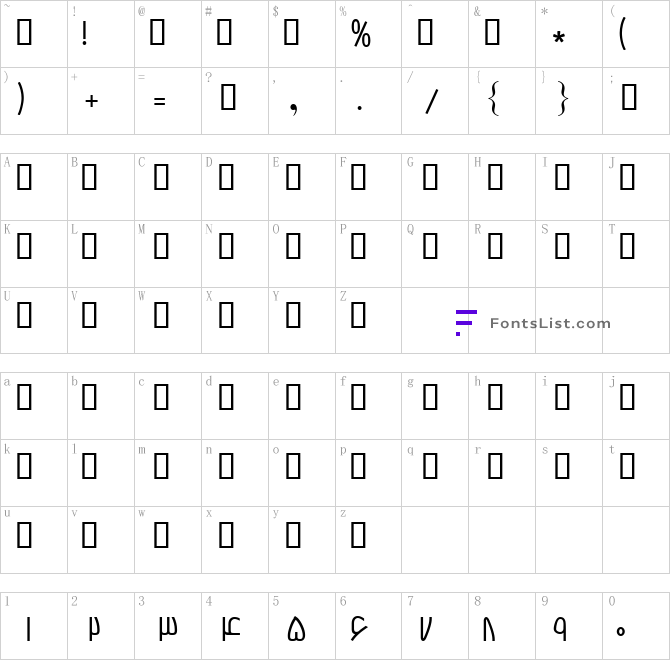
B-Bardiya.ttf is a very beautiful artistic font, B-Bardiya.ttf is widely used in the design and printing of various books and pictures,B-Bardiya.ttf has a strong visual impact,B-Bardiya.ttf is a commonly used font in newspapers, magazines and books, and is used in posters, e-commerce Poster design, store design, logo design, font design and other fields.B-Bardiya.